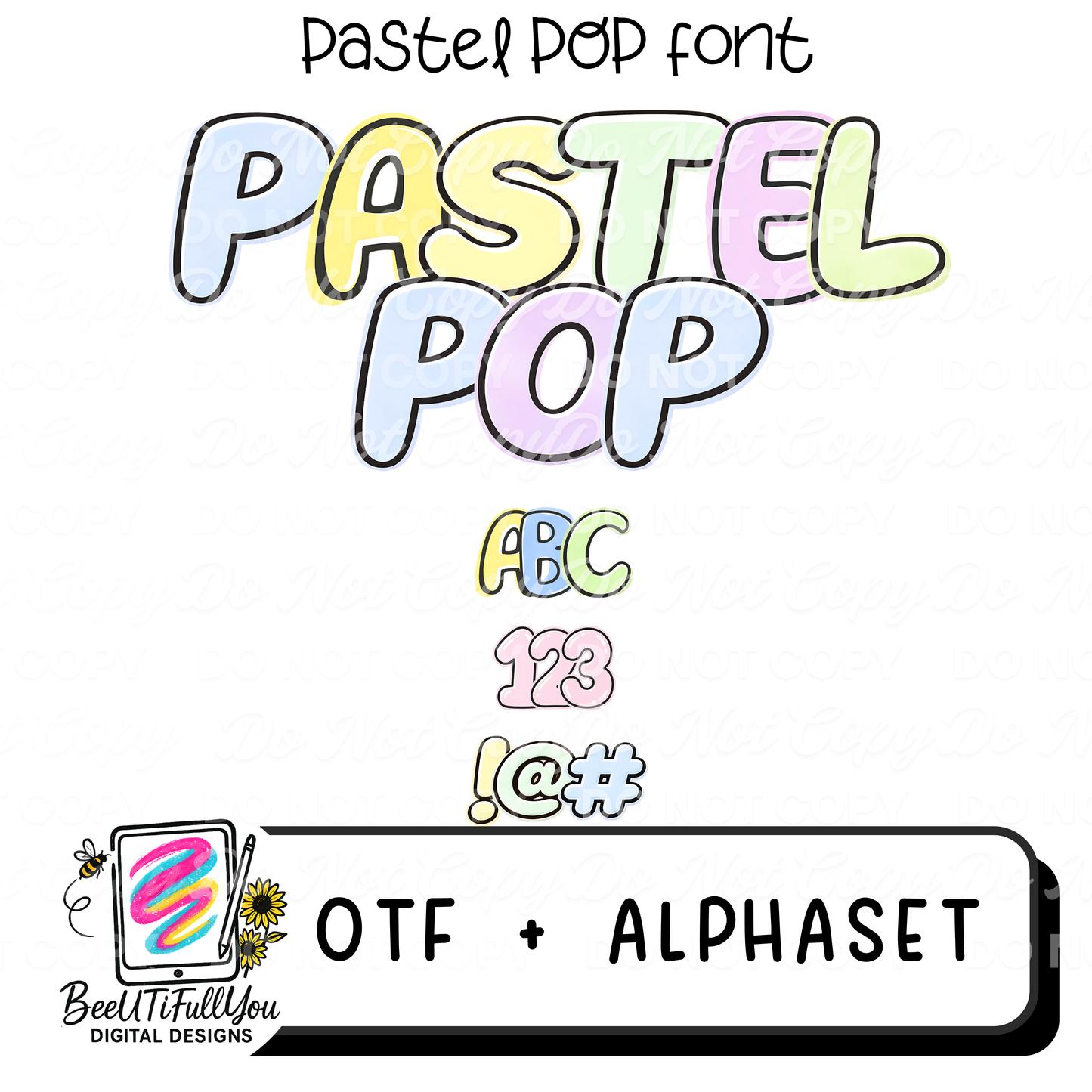
Pastel Pop Font OTF + Alphabet PNG | Cute Bubble Font | Pastel Letters | Commercial Use Digital Font
Add soft color and playful charm to your designs with Pastel Pop Font šāØ
This bubbly, rounded font features sweet pastel tones and a bold outline style thatās perfect for trendy, cheerful projects.
Original font by BeeUTiFullYou š